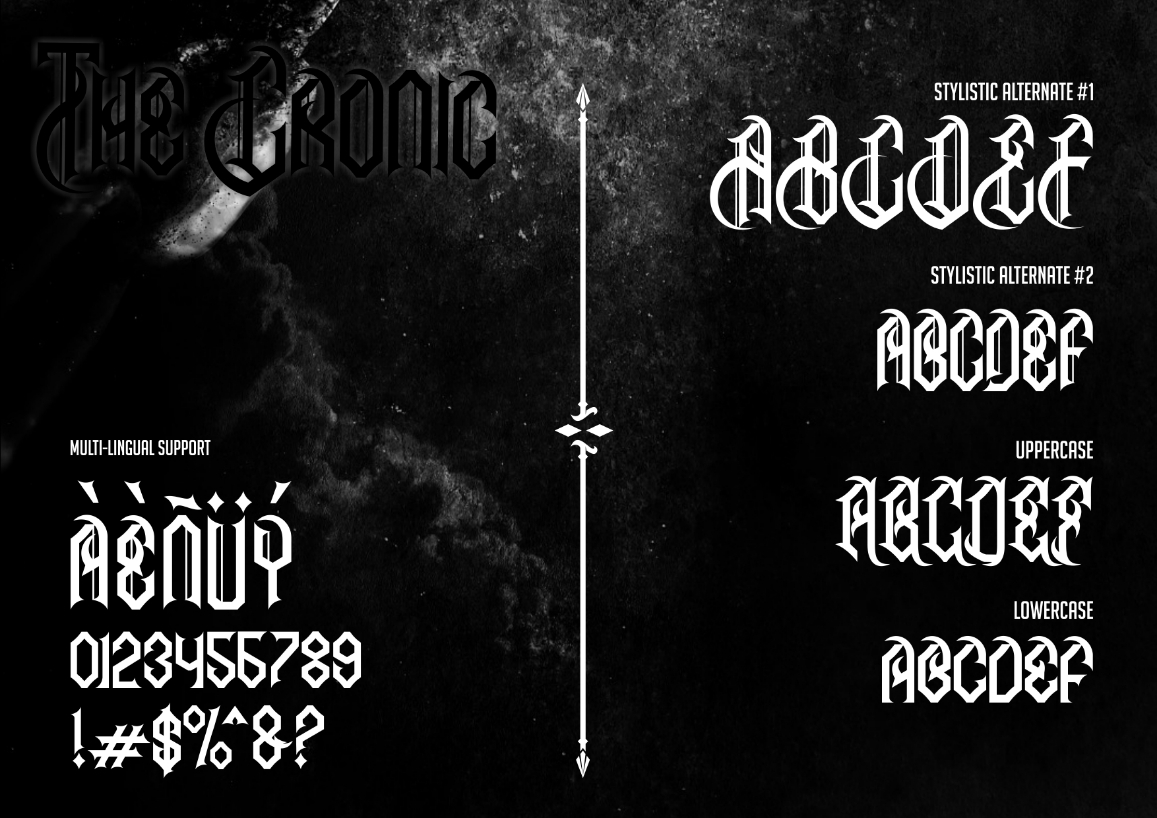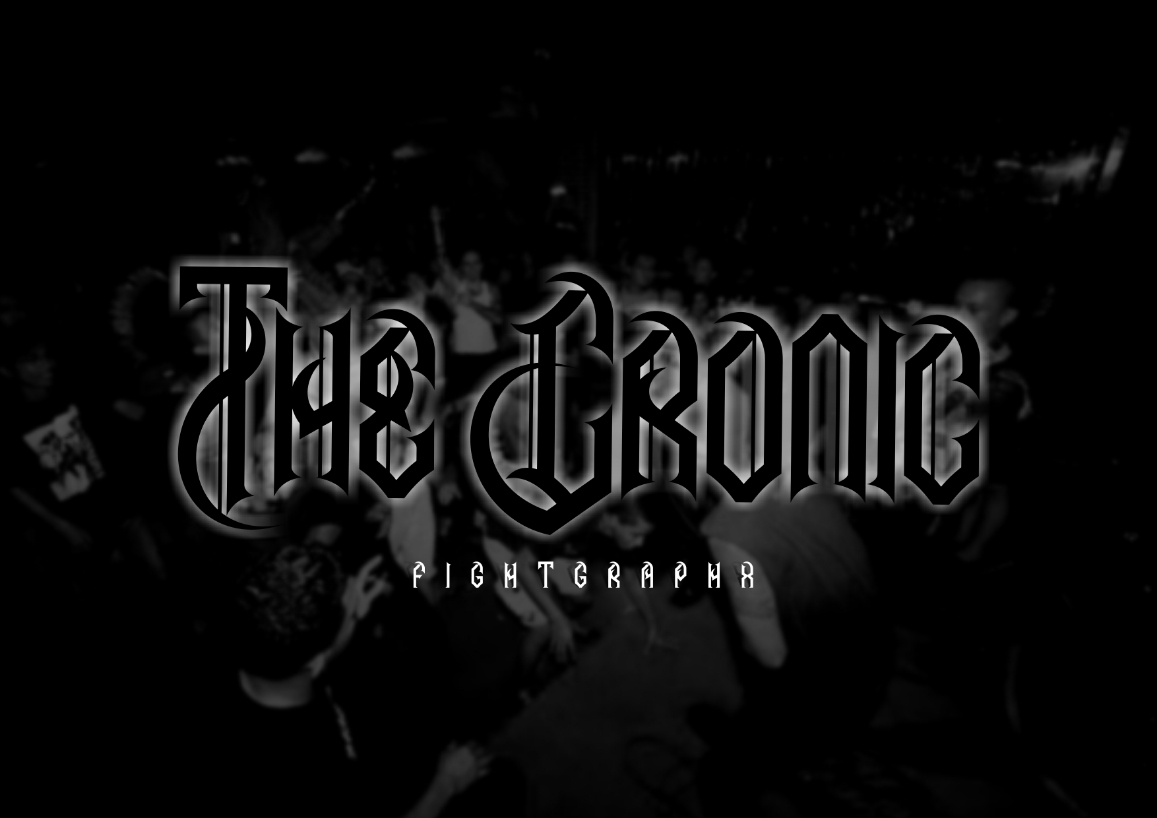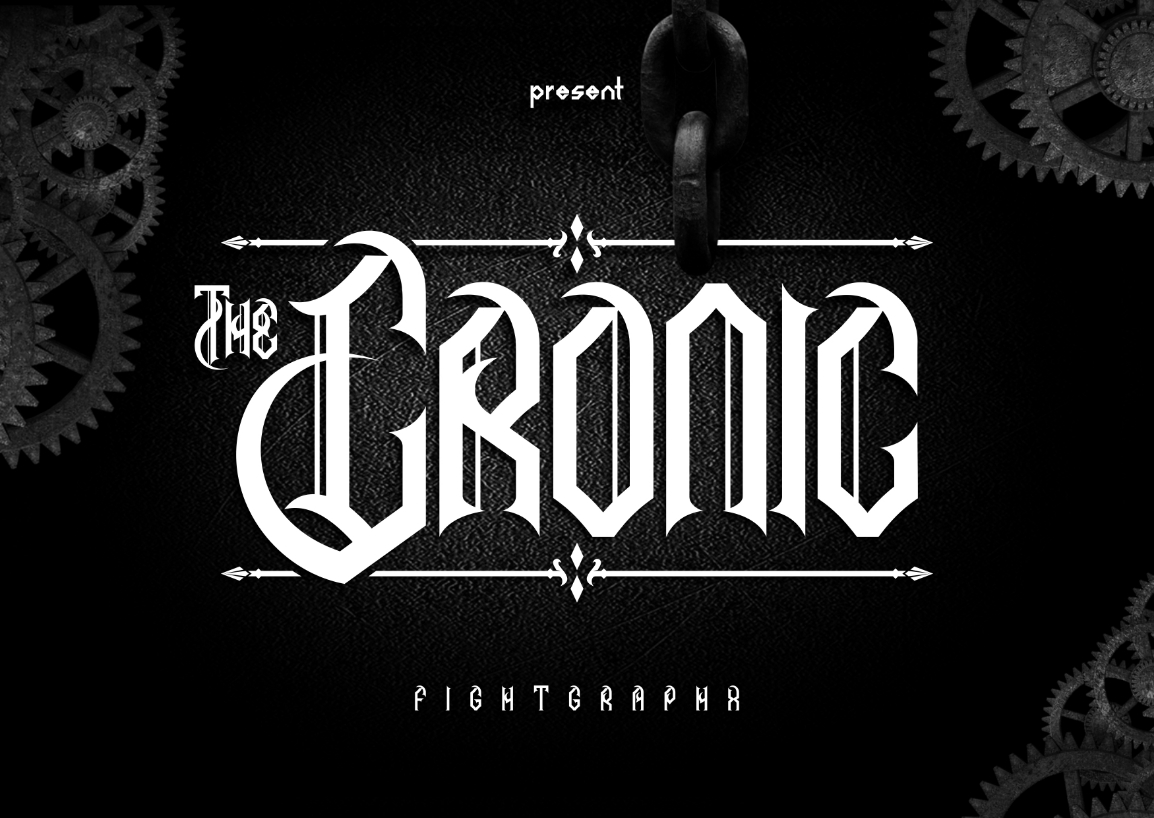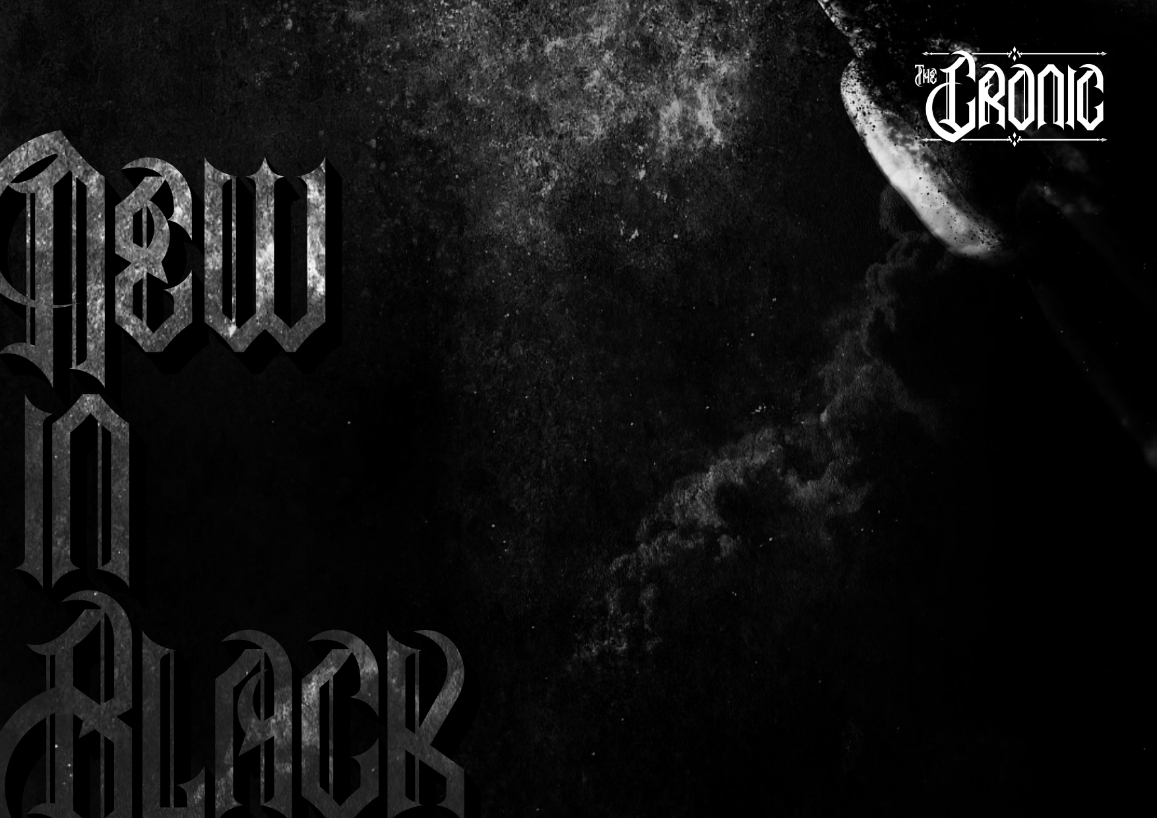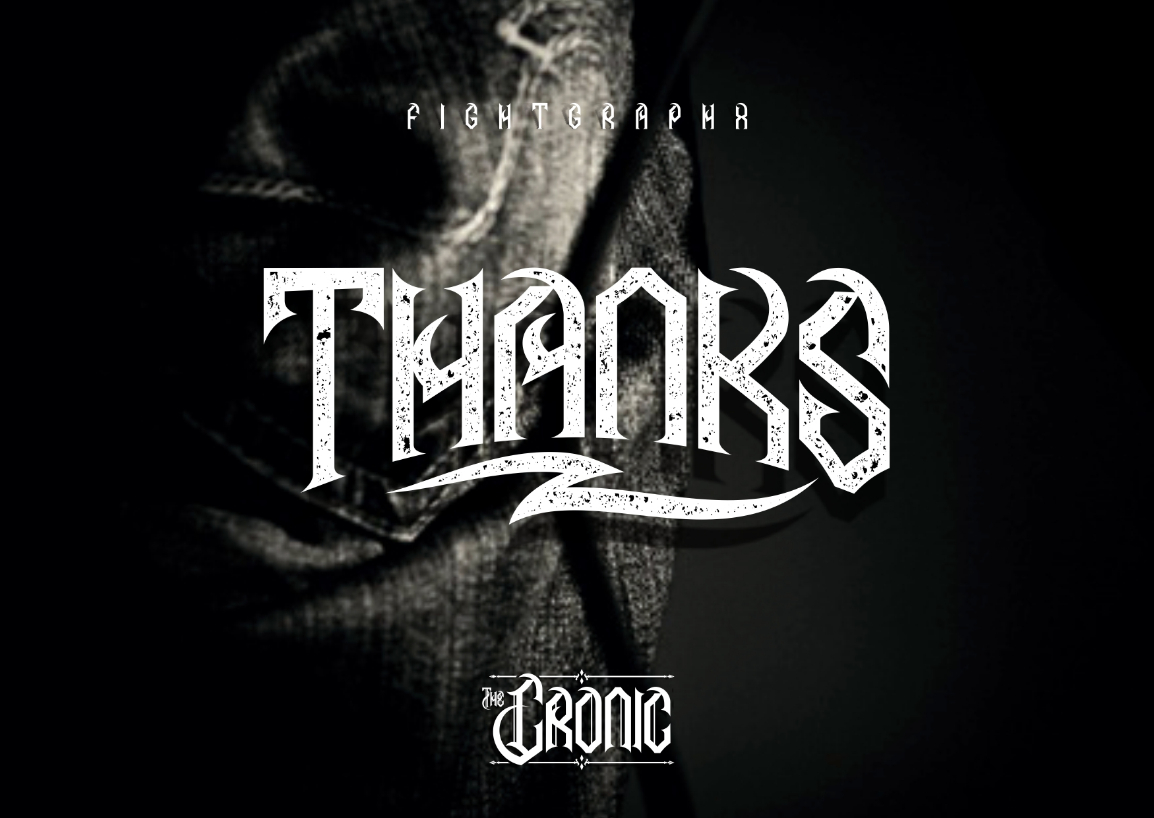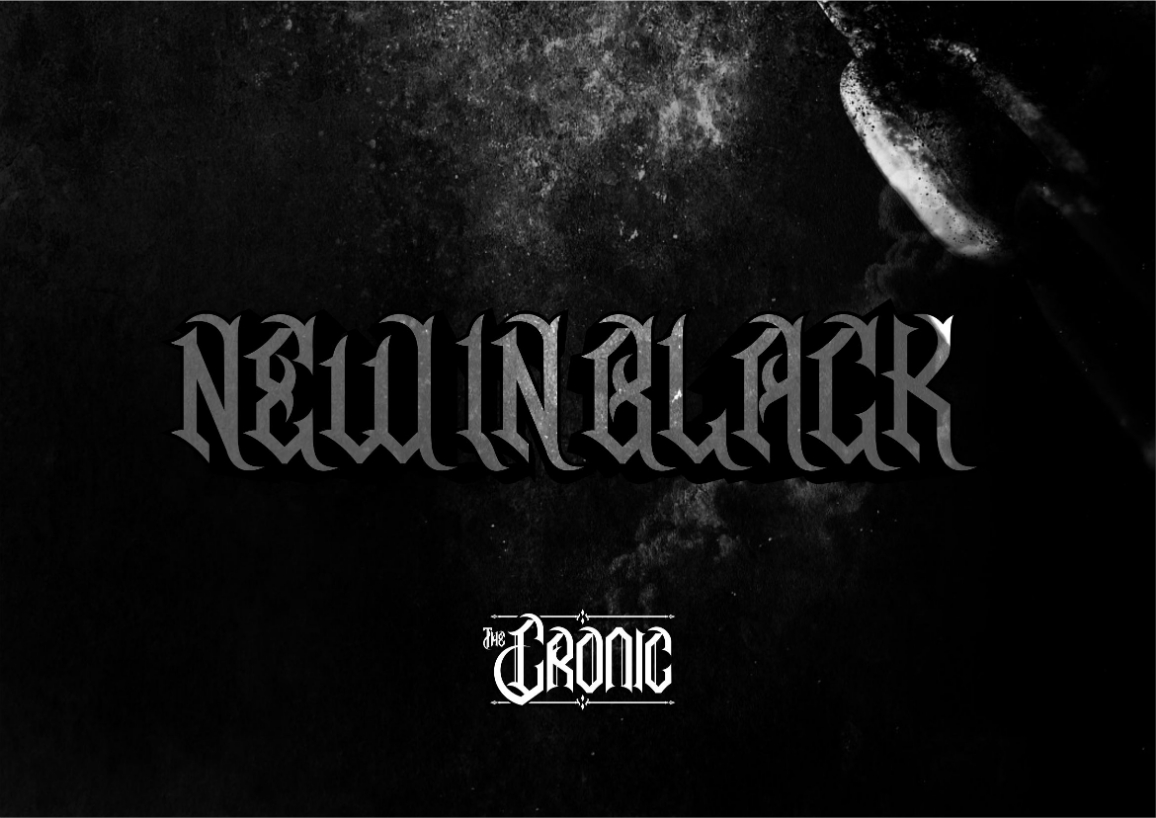
The Cronic Font
About The Cronic Font
The Cronic is a unique, striking typeface. It’s suitable for every design that needs to stand out with an unique typeface.